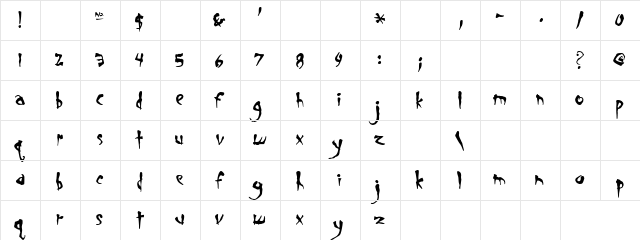
Foul Regular
Design Context for Foul Typeface
Foul is a composed and adaptable typeface that performs quietly and consistently across a wide range of design contexts.